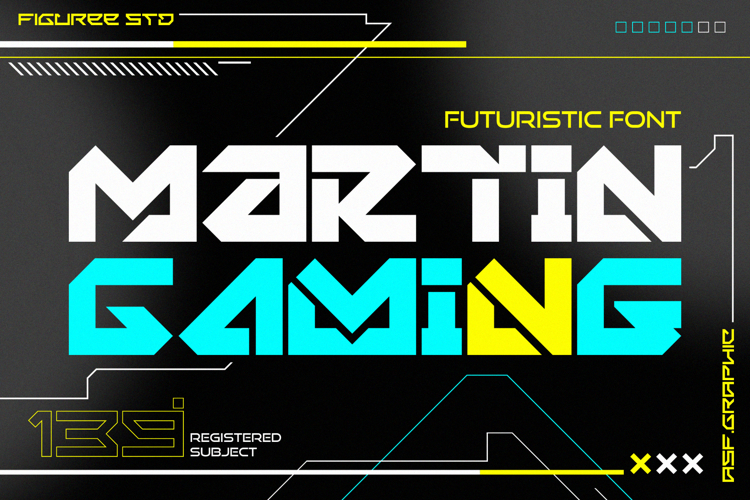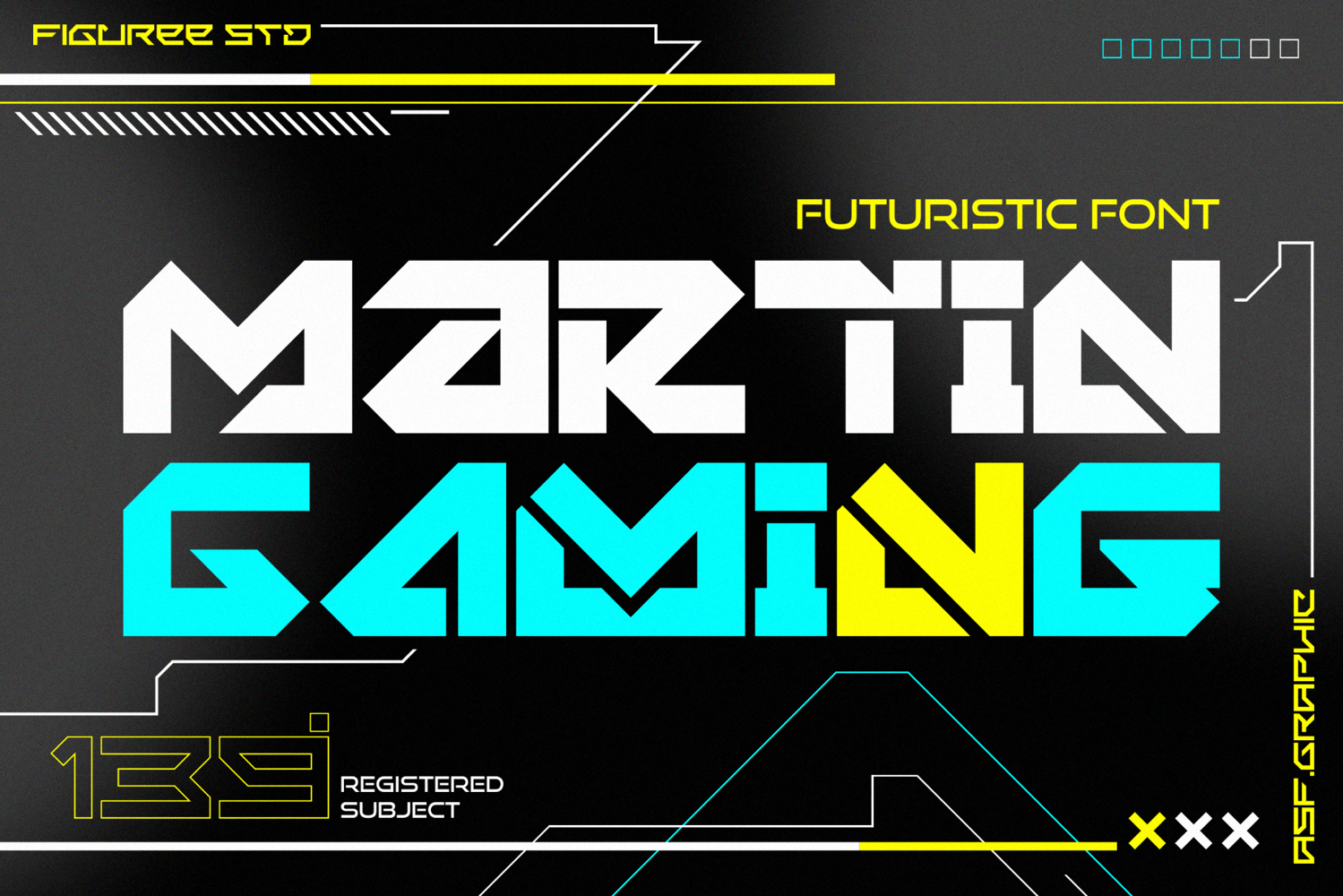
Martin Gaming- Futuristic Techno Font
Martin Gaming – Futuristic Techno Font for Esports and Digital Design
Typography is at the core of modern digital branding, especially in industries like gaming and technology. Martin Gaming – Futuristic Techno Font is crafted for designers who want to create bold, high-tech visuals with a strong identity. This futuristic techno font delivers sharp geometry, digital-inspired forms, and a modern aesthetic that perfectly fits esports, gaming logos, and cutting-edge branding projects.
This futuristic techno font is designed to capture the energy of the digital world. Whether you’re building a gaming brand, designing a YouTube thumbnail, or crafting a cyber-style poster, Martin Gaming ensures your visuals stand out with clarity and impact.